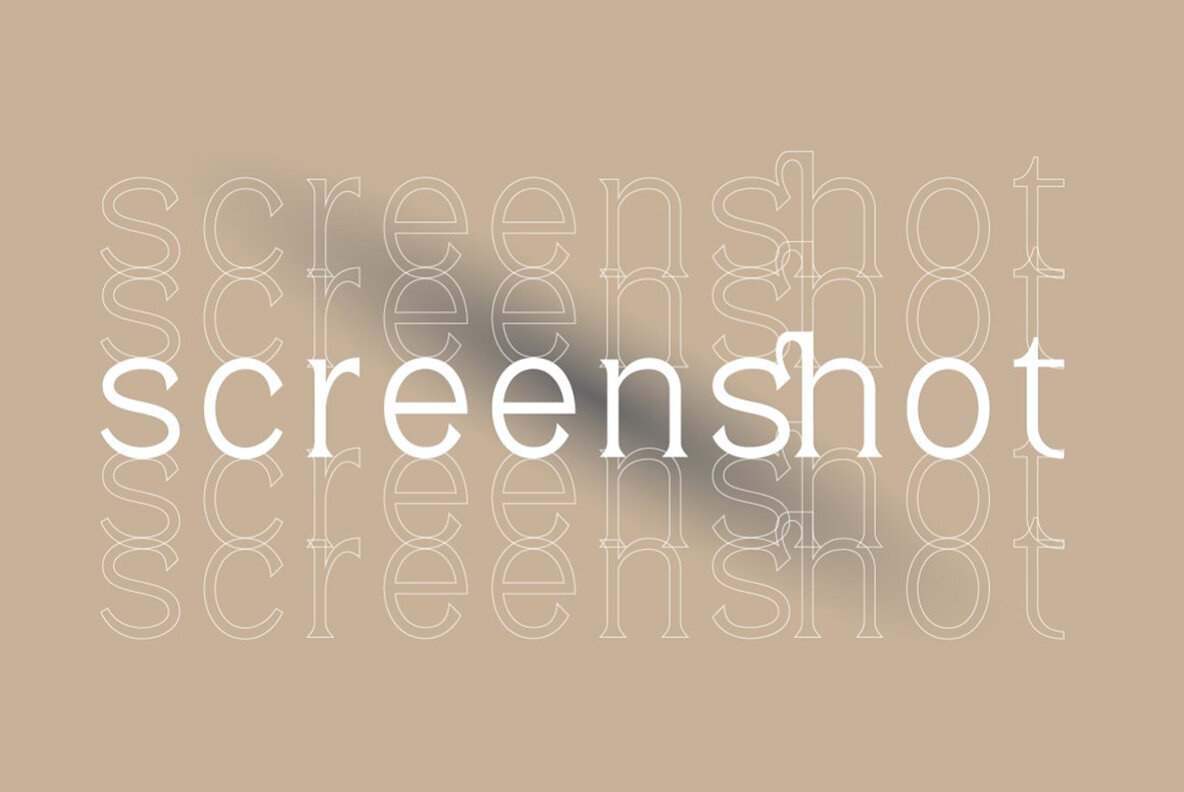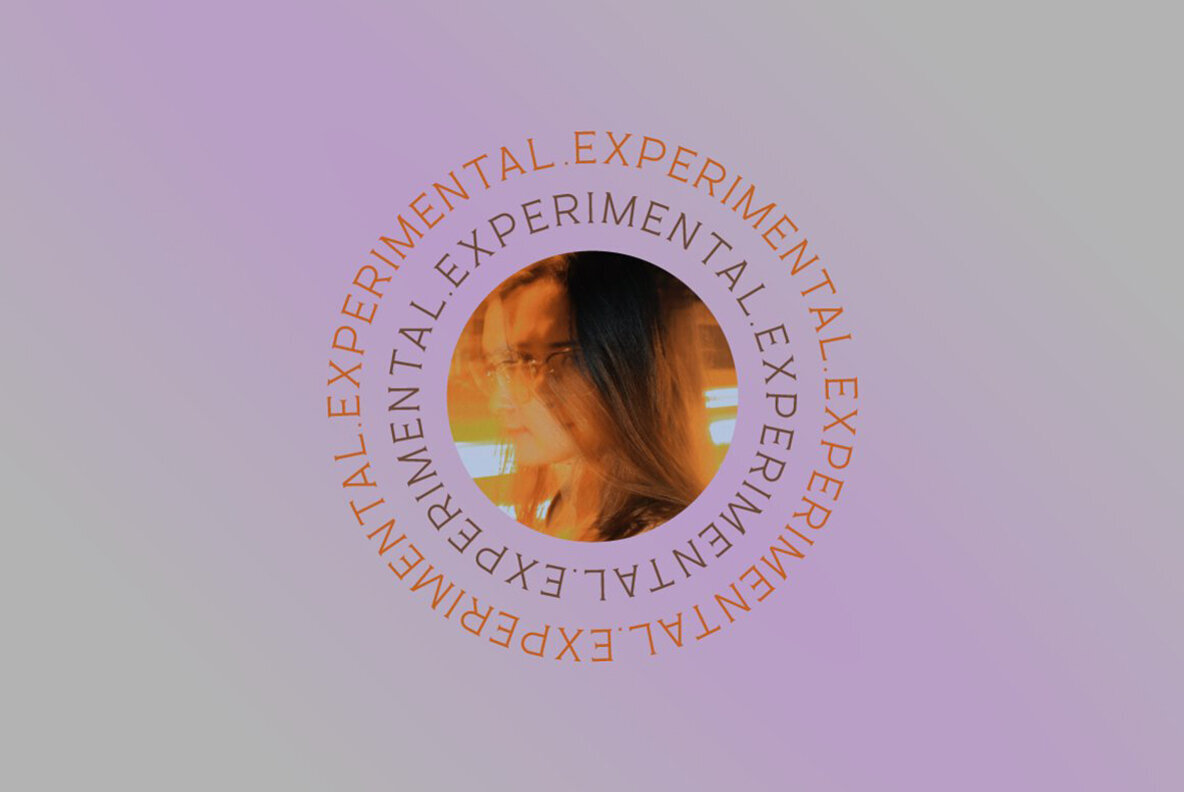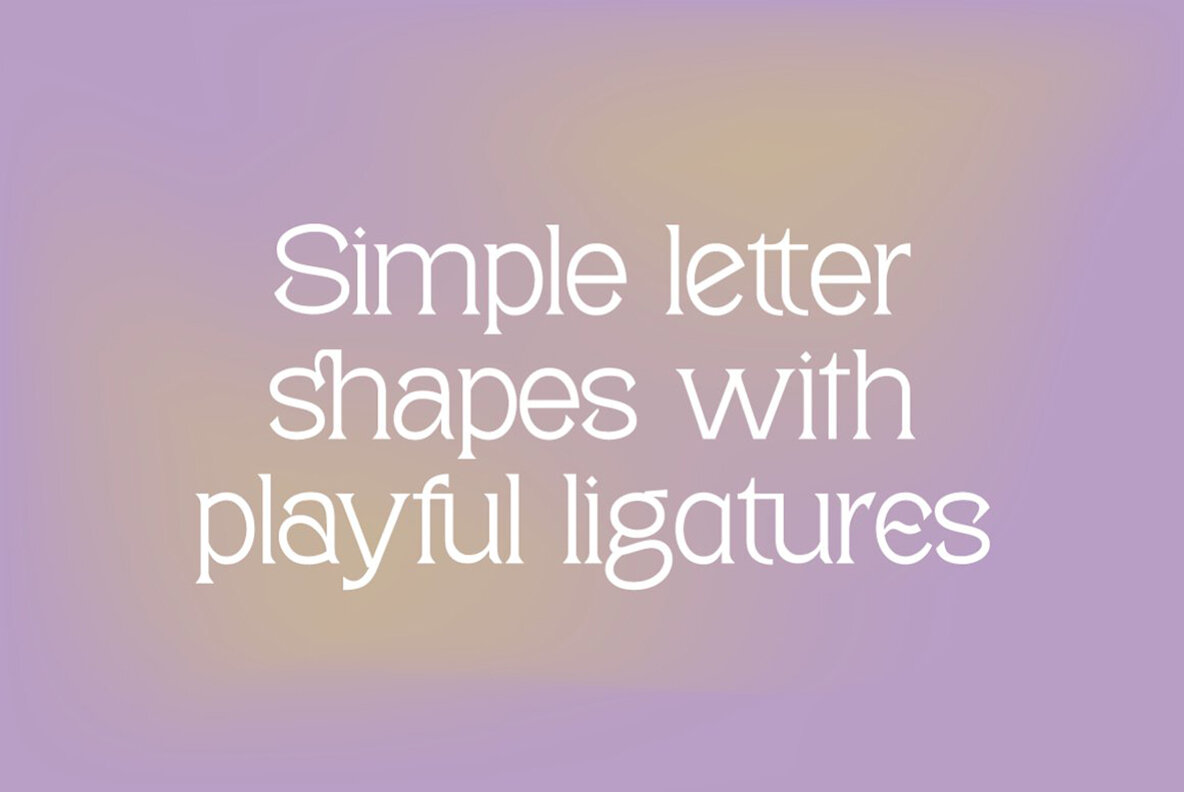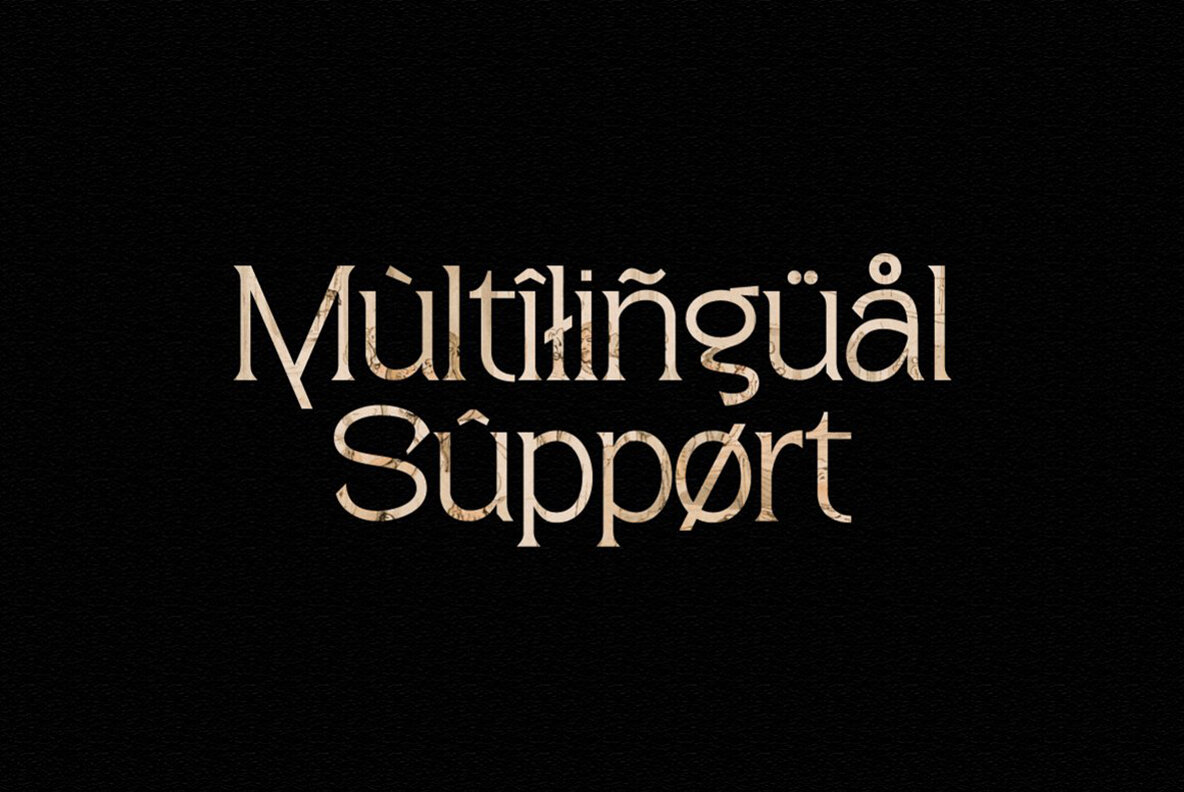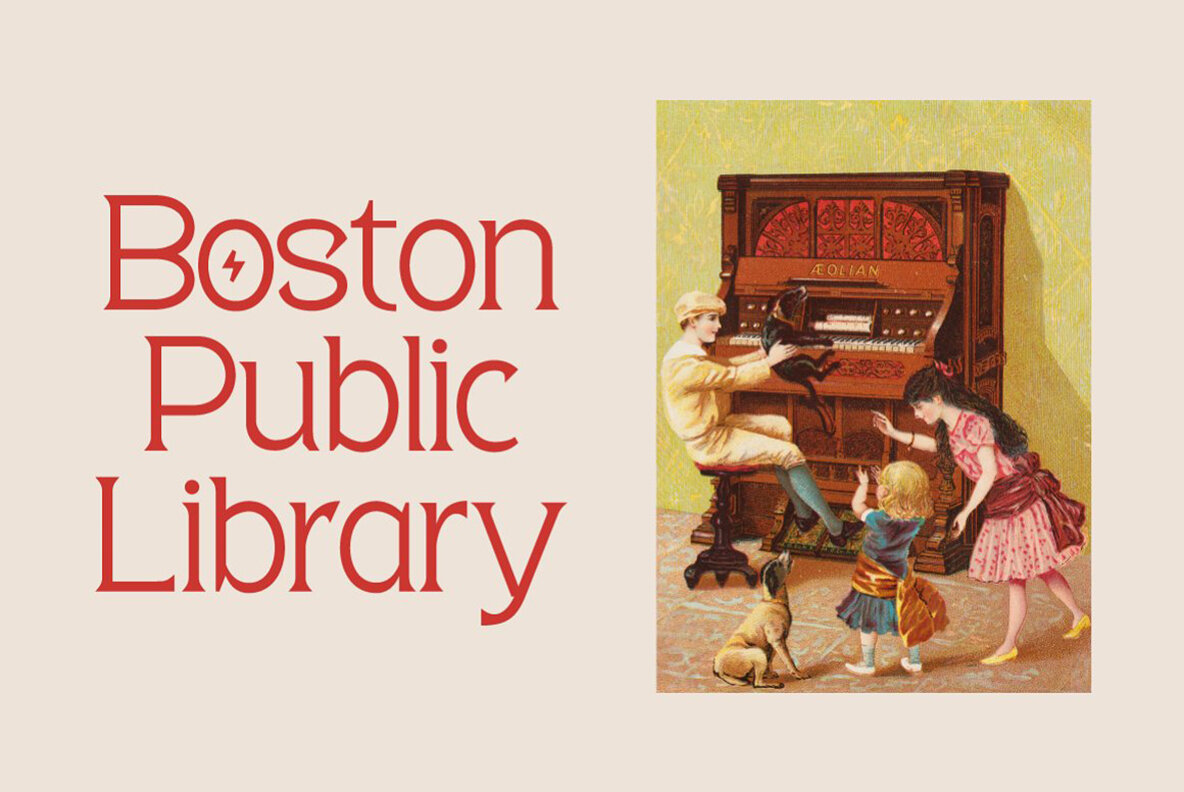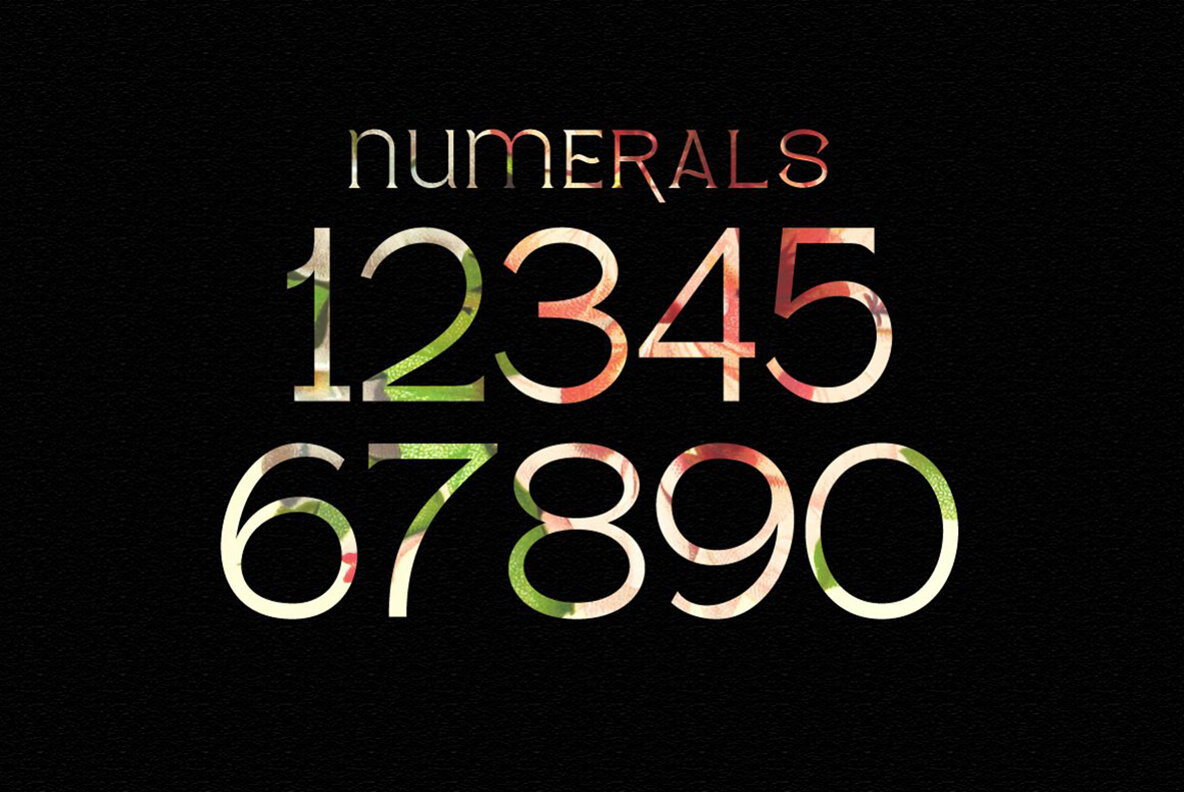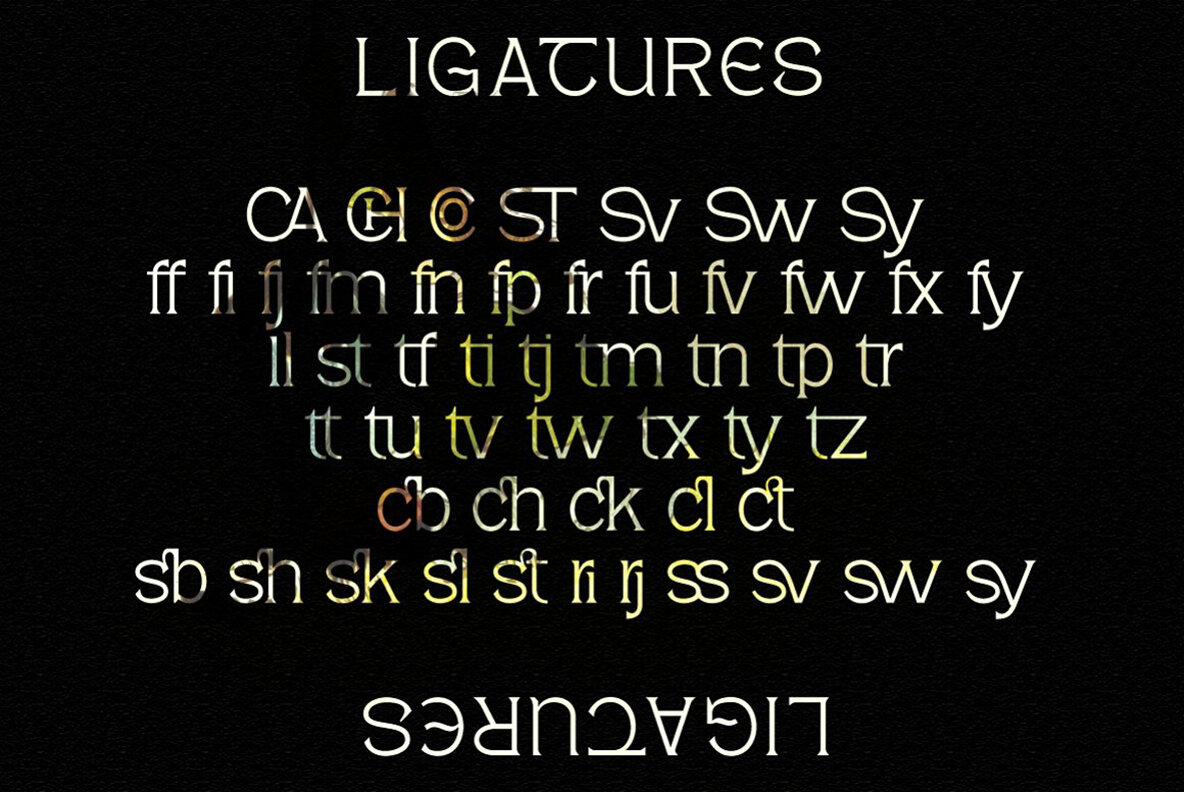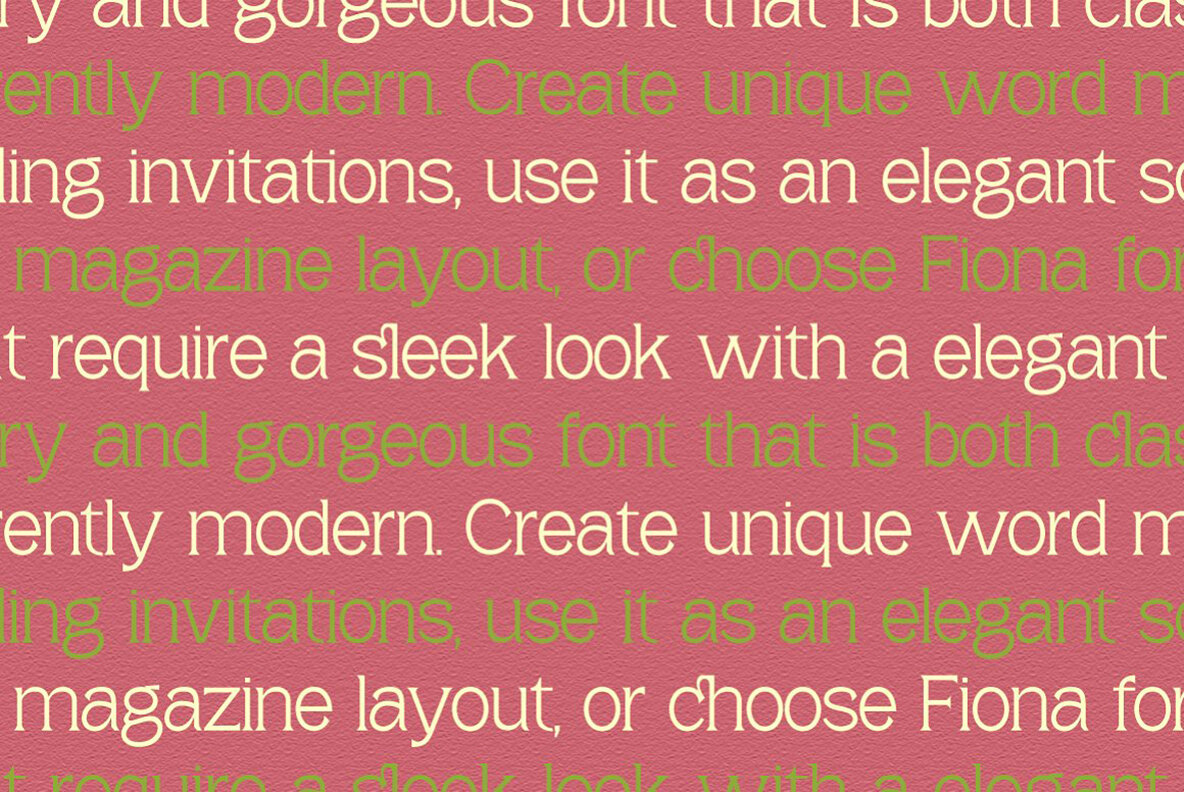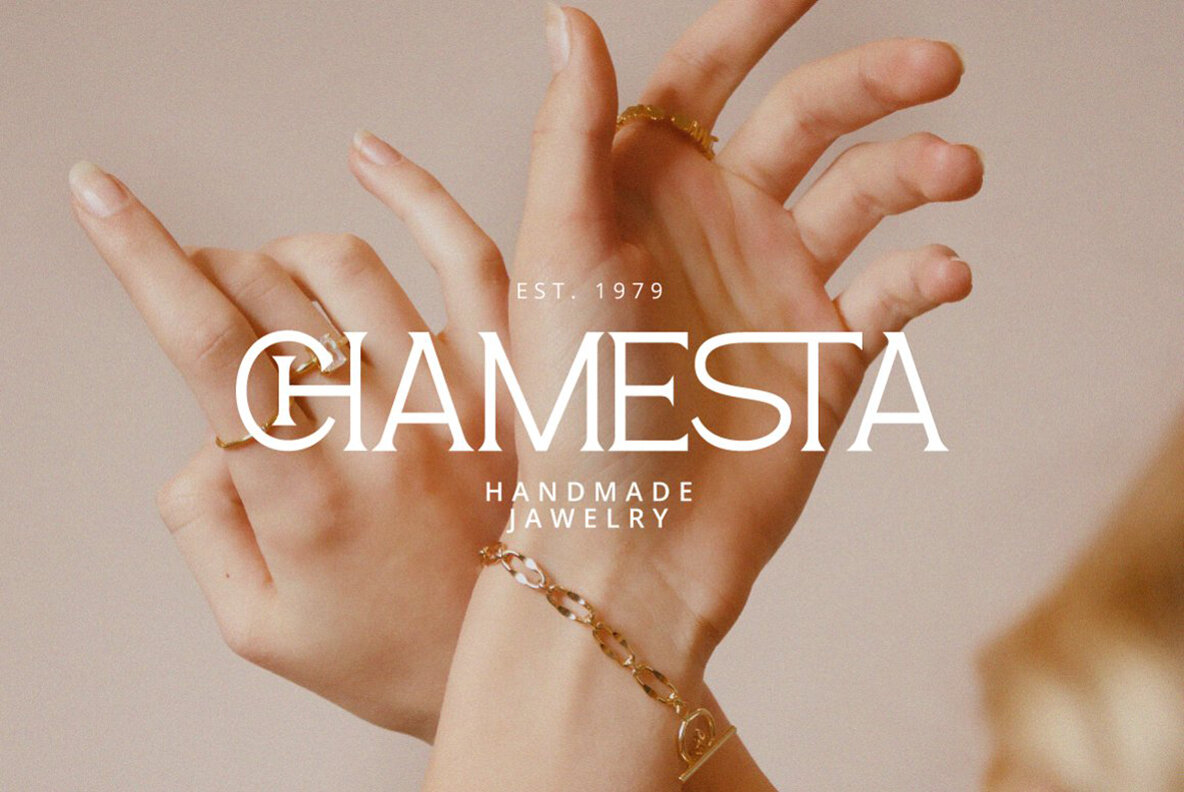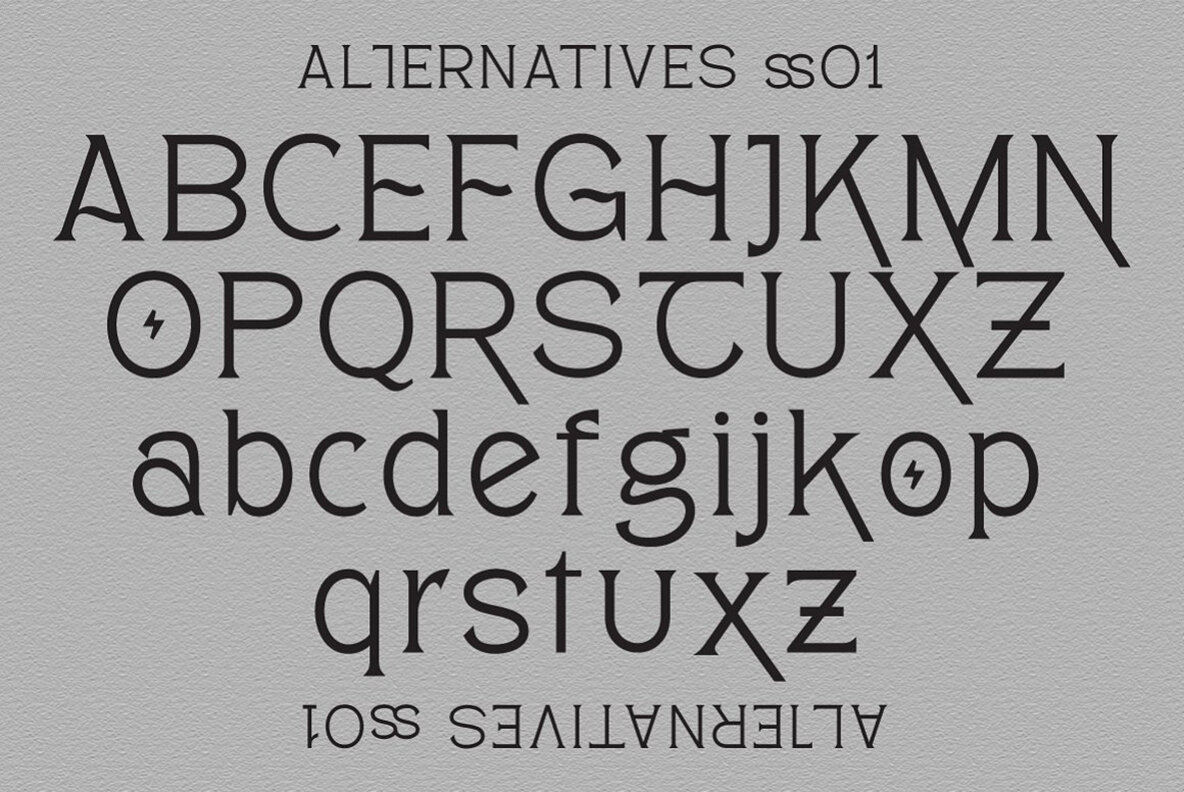
Pagers Display Font
Pagers Display
Pagers is a modern serif font that combines contemporary elegance with a retro aesthetic. It features alternatives and ligatures, making it ideal for crafting stunning logos, quotes, blog posts, branding projects, magazine layouts, wedding invitations, and more. We are confident that Pagers will be a perfect addition to your font collection and enhance your creative projects. If you have any questions, please feel free to contact us. Happy creating!Pagers Display: Modern Serif Font with Retro Flair